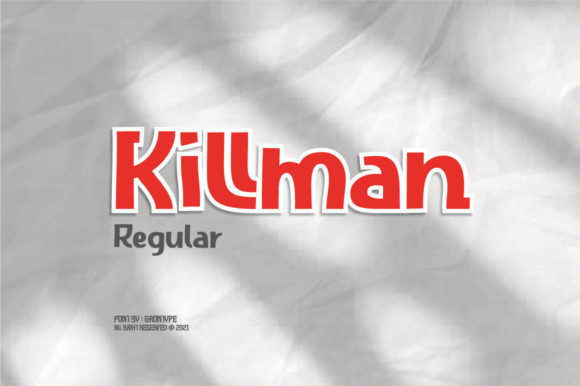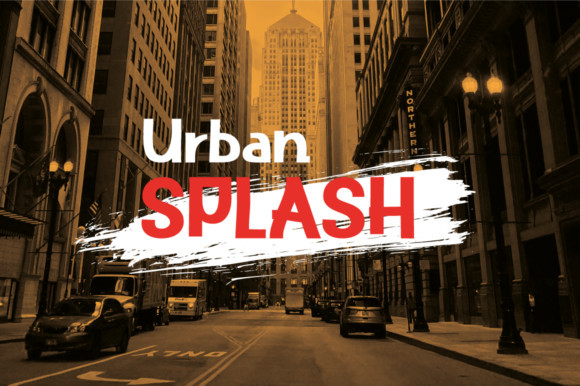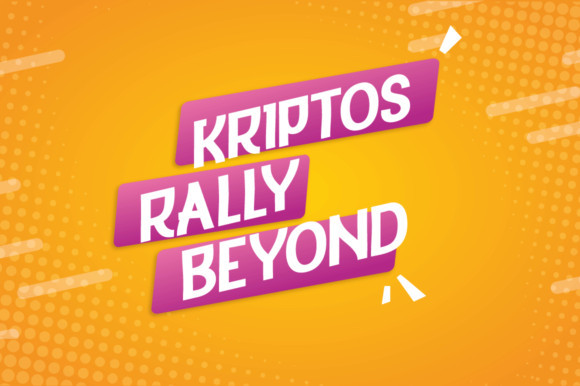
Killman Font
Killman is a cool and quirky display font. This original look will appeal to a wide range of crafty ideas, from letterheads and titles, to stationery.